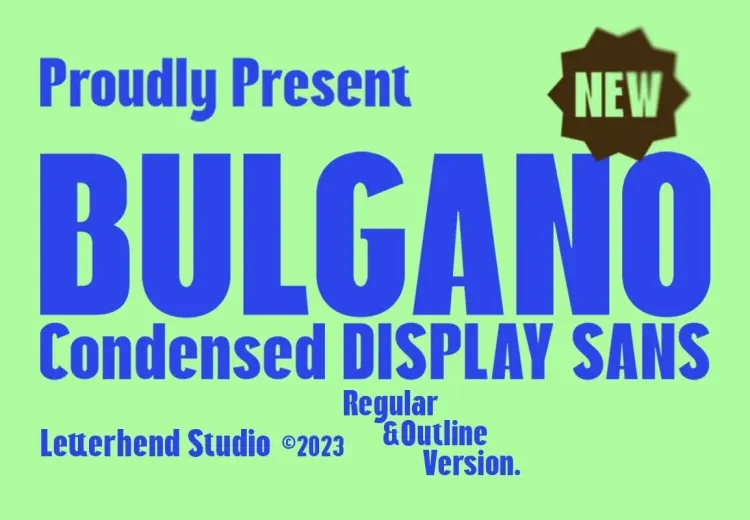
Bulgano Font
Bulgano is a striking condensed display sans font that comes in two versatile styles: normal and outline. Combining a casual, classic aesthetic with modern appeal, Bulgano is designed to make an impact across a wide range of applications. Its unique design makes it an excellent choice for creating eye-catching labels, logos, and various forms of print and digital media.
Key Features of Bulgano:
Condensed Display Design: Bulgano offers a compact and bold look with its condensed design, making it ideal for attention-grabbing headlines and impactful statements. The normal and outline styles provide flexibility in design, allowing for creative variations.
Versatile Applications: Perfect for a diverse range of uses, Bulgano excels in labels, logos, books, and magazines. Its casual yet classic appearance also suits wedding invitations, greeting cards, packaging, fashion branding, make-up products, stationery, and advertising.
Modern Classic Aesthetic: The font’s blend of casual charm and classic style ensures it adds a sophisticated touch to any project, from novels and labels to promotional materials.
Ideal Uses for Bulgano:
Labels and Logos: Create standout labels and logos with Bulgano, utilizing both its normal and outline styles to achieve a distinctive look.
Books and Magazines: Enhance book covers and magazine layouts with Bulgano‘s bold and stylish design, making your publications visually appealing.
Wedding and Greeting Cards: Use Bulgano for elegant wedding invitations and greeting cards, adding a touch of classic charm to your special occasions.
Packaging and Fashion: Apply Bulgano to packaging designs and fashion branding, giving your products a unique and memorable appearance.